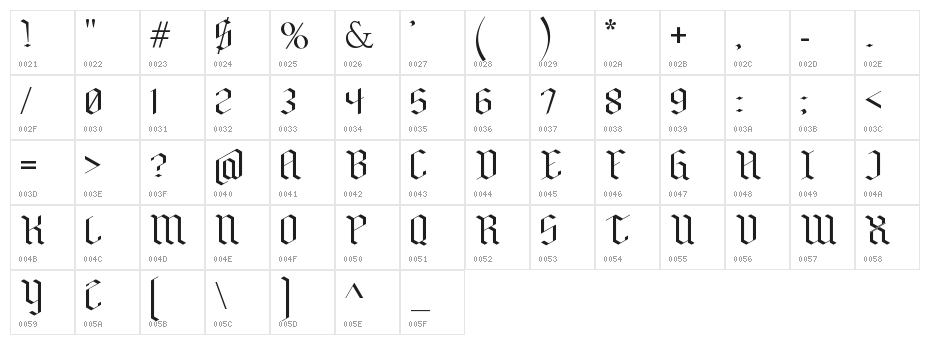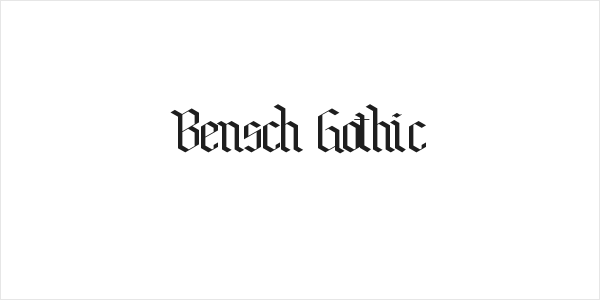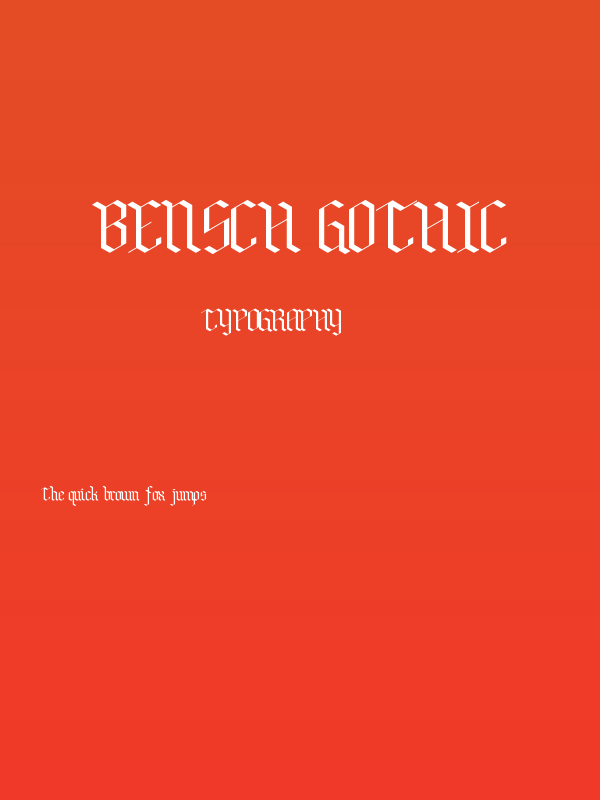
Bensch Gothic Font
Bensch Gothic Description
This font exhibits a bold and striking blackletter style, characterized by its sharp, angular strokes and intricate design. The uppercase letters are tall and commanding, while the lowercase letters maintain a consistent flow with distinctive curves and edges. The numerals are equally bold, matching the overall aesthetic with their geometric precision. Special characters are crafted with the same attention to detail, ensuring a cohesive look across all glyphs. This font's dramatic appearance makes it ideal for projects that require a historical or gothic touch.
| Proposed Projects | Ideal for use in historical documents, gothic-themed designs, book covers, posters, and branding that requires a bold statement. |